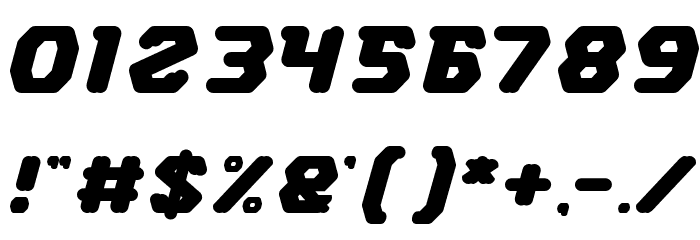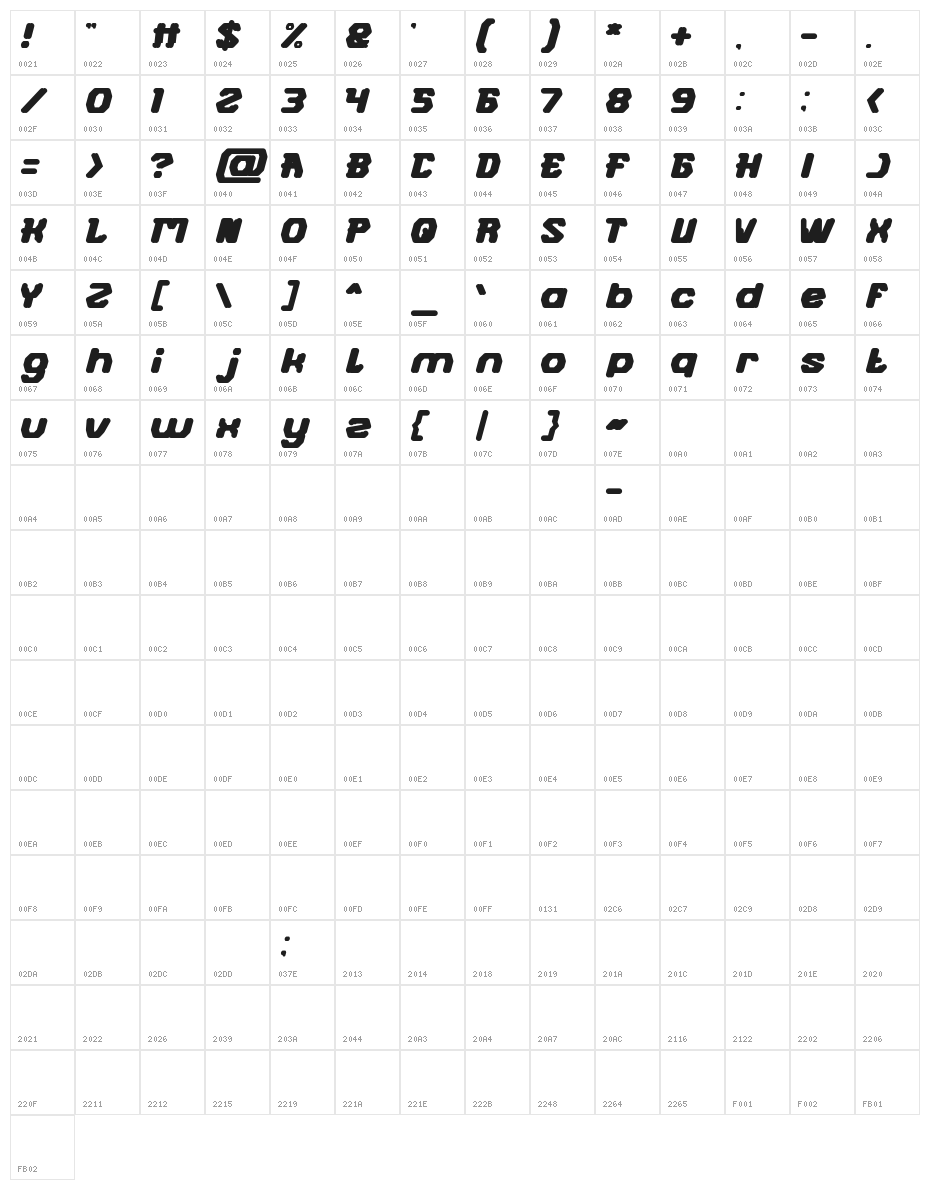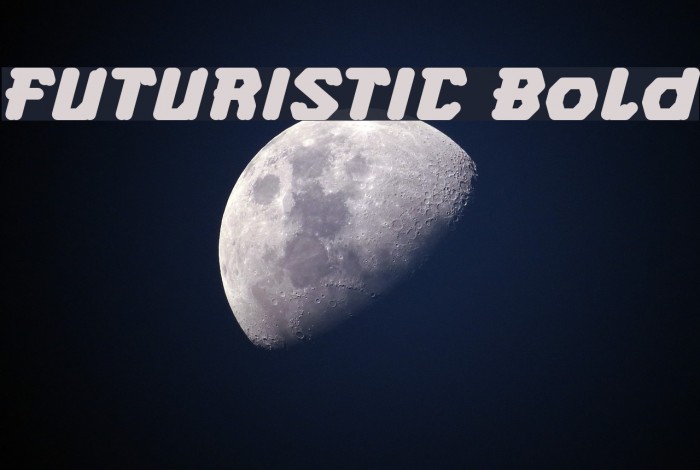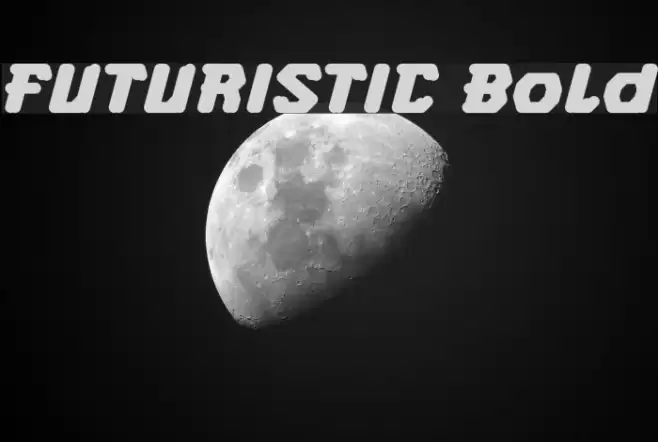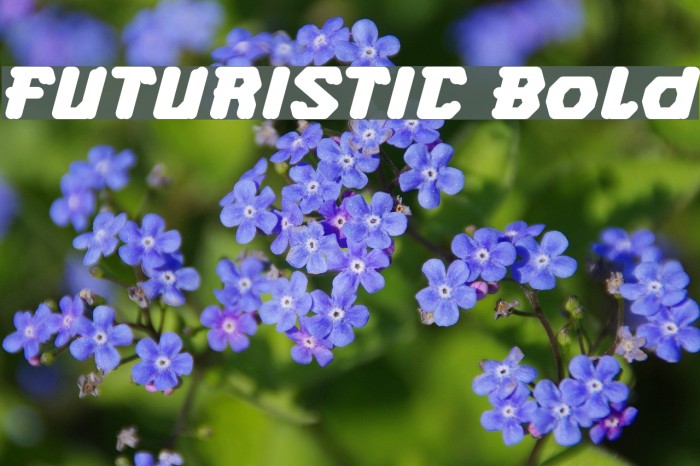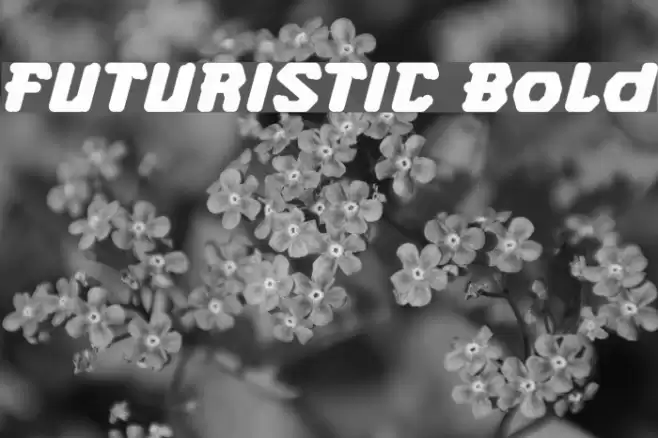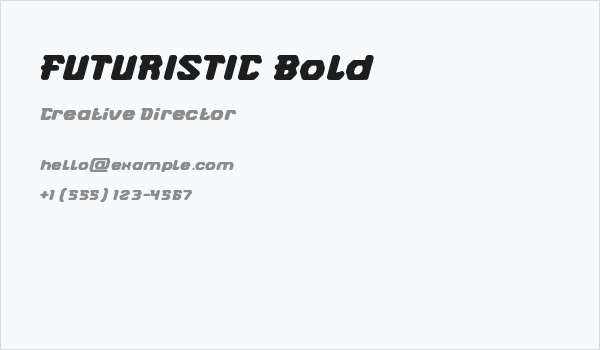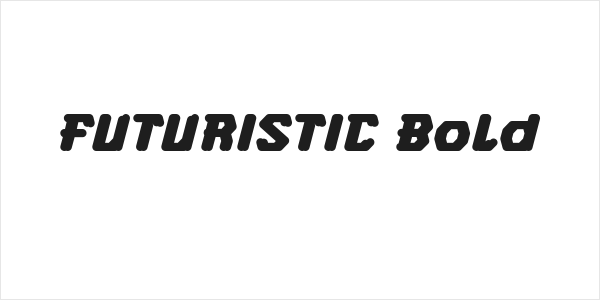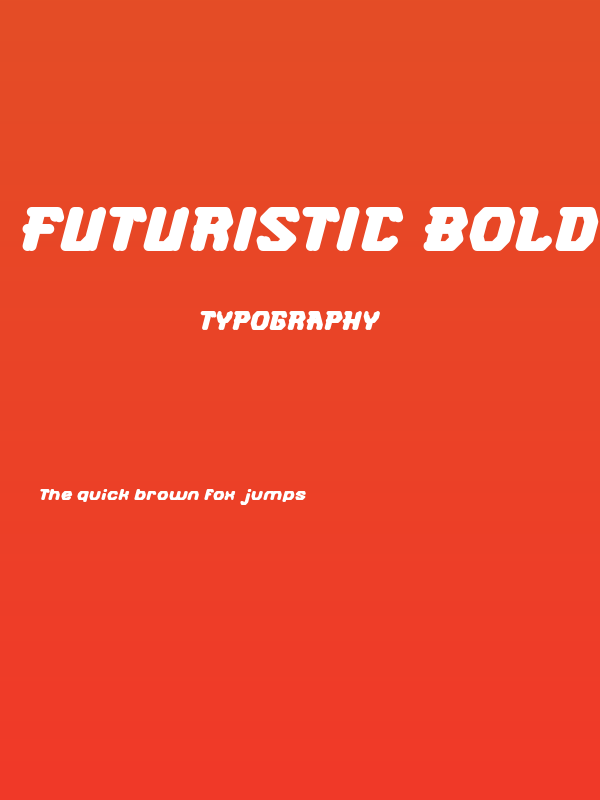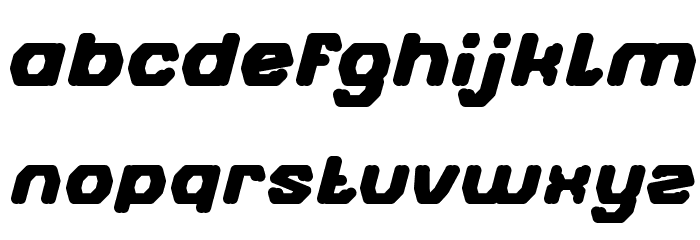
FUTURISTIC Bold Font
FUTURISTIC Bold Description
This font features a bold, futuristic design with a strong geometric influence. The characters are constructed with thick, uniform strokes that create a sense of solidity and modernity. The uppercase letters have a distinct angularity, while the lowercase letters maintain a consistent style with slightly rounded edges. The numerals and special characters follow the same design principles, ensuring a cohesive look across all glyphs. The overall appearance is dynamic and impactful, making it suitable for attention-grabbing applications.
| Proposed Projects | Ideal for sci-fi themed projects, technology branding, video game titles, and futuristic posters. |